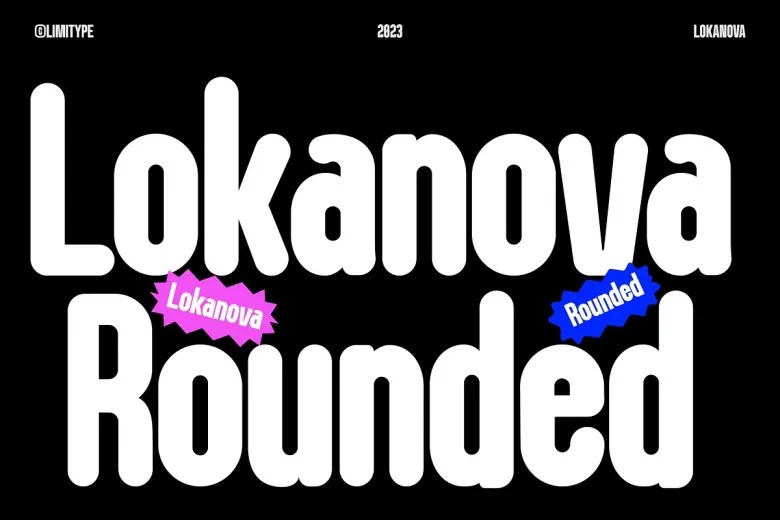
Lokanova Rounded Font
Lokanova is a captivating open-type display font that combines boldness with playfulness. With its striking and distinct sans serif design, it conveys a solid yet approachable feel, making it ideal for a variety of creative projects. Perfect for headlines, branding, and designs that require a strong, memorable typographic presence.
This versatile font is available in uppercase, lowercase, numbers, symbols, and supports multilingual usage, ensuring it can be seamlessly integrated into any design project. Whether you’re creating a logo, poster, or website, Lokanova adds a dynamic touch to your work.
Its clean lines and modern aesthetics make Lokanova an excellent choice for designers looking to create a lasting impact. Use it for everything from corporate branding to fun, youthful designs.